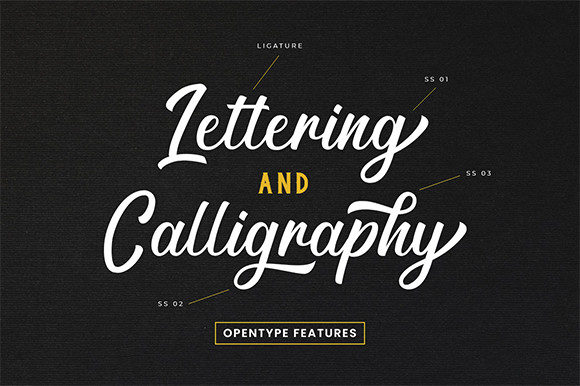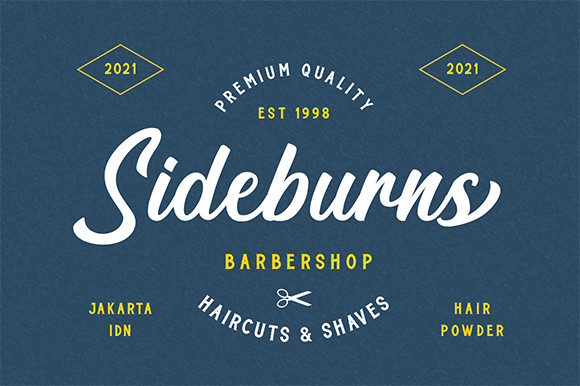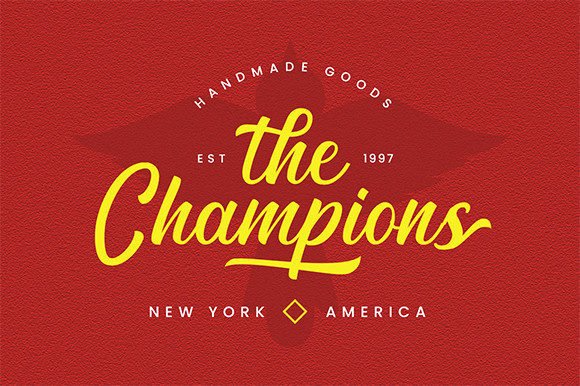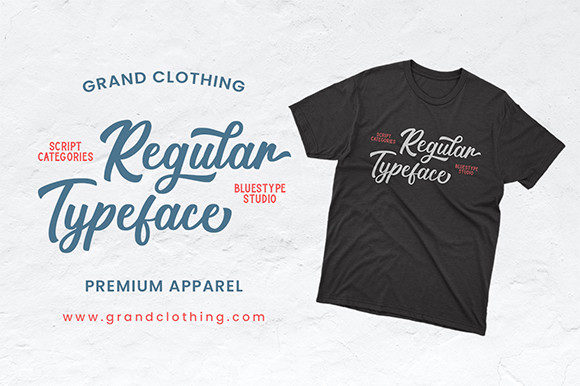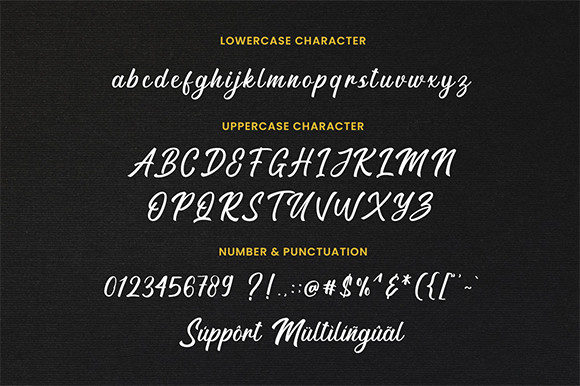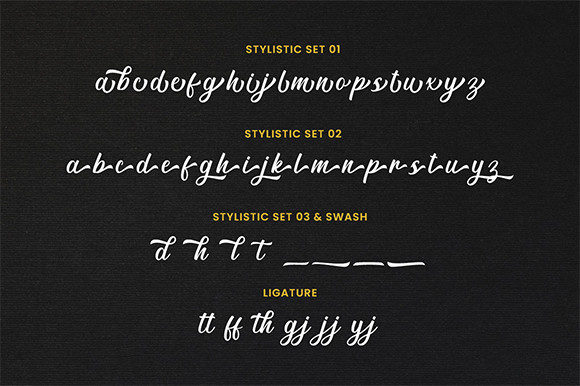
Introducing Charlington Font: A Charming Script Font for Your Creative Projects
Are you a designer or crafter looking for a unique and playful font to add a touch of personality to your projects? Look no further than Charlington Font, a lovely script font that features charming, dancing characters that are sure to delight. In this article, we’ll take a closer look at Charlington Font, its features, and how you can use it to elevate your designs.
What is Charlington Font?
Charlington Font is a beautiful script font that is designed to add a touch of whimsy and playfulness to your designs. Its charming characters seem to dance along the baseline, creating a sense of movement and energy. This font is perfect for a variety of projects, from wedding invitations and party decorations to branding and packaging.
Features of Charlington Font
So, what makes Charlington Font so special? Here are just a few of its key features:
- PUA Encoding: Charlington Font is PUA (Private Use Area) encoded, which means that you can access all glyphs and swashes with ease. This makes it easy to use the font in your designs, even if you’re not a professional typographer.
- Charming Characters: The characters in Charlington Font are designed to be charming and playful, with a sense of movement and energy. This makes them perfect for creating eye-catching headlines and titles.
- Script Font: Charlington Font is a script font, which means that it’s perfect for creating flowing, connected text. This makes it ideal for use in wedding invitations, party decorations, and other projects where you want to create a sense of elegance and sophistication.
How to Use Charlington Font
So, how can you use Charlington Font in your designs? Here are a few ideas to get you started:
- Wedding Invitations: Charlington Font is perfect for creating beautiful wedding invitations that are both elegant and playful. Use it to create a custom invitation that sets the tone for the big day.
- Party Decorations: Charlington Font is also great for creating party decorations, such as banners, garlands, and other DIY projects. Its playful characters are sure to add a touch of whimsy to any celebration.
- Branding and Packaging: If you’re a business owner or marketer, Charlington Font can be a great addition to your branding and packaging. Use it to create eye-catching headlines and titles that help your brand stand out.
Tips for Working with Charlington Font
Here are a few tips for working with Charlington Font:
- Experiment with Different Sizes: Charlington Font looks great in a variety of sizes, from large headlines to smaller body text. Experiment with different sizes to see what works best for your project.
- Pair it with Other Fonts: Charlington Font pairs well with a variety of other fonts, including sans-serif fonts and serif fonts. Experiment with different pairings to see what works best for your project.
- Use it to Create a Sense of Movement: Charlington Font is designed to create a sense of movement and energy. Use it to create a sense of flow and continuity in your designs.
| Font Name | Charlington Font |
| Author | Bluestype Studio |
In conclusion, Charlington Font is a charming script font that is perfect for designers and crafters who want to add a touch of personality to their projects. Its PUA encoding makes it easy to use, and its charming characters are sure to delight. Whether you’re creating wedding invitations, party decorations, or branding and packaging, Charlington Font is a great choice. So why not give it a try and see what you can create?
With its unique blend of playfulness and elegance, Charlington Font is sure to become a favorite in your design arsenal. So go ahead, get creative, and see what amazing projects you can create with Charlington Font!